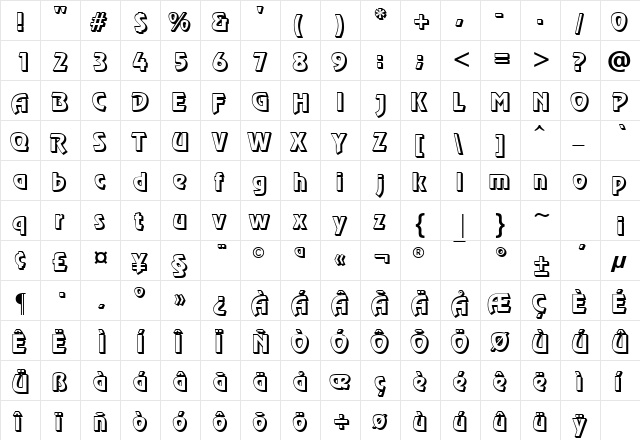
ChorusLineShadowSSK Regular
Design Context for ChorusLineShadowSSK Typeface
ChorusLineShadowSSK is built around its visual character rather than neutral utility — its distinctive forms are designed to make an impression at display sizes.
Font Pairing: Pair with a clean neutral sans-serif for body copy to let ChorusLineShadowSSK's character lead without overwhelming the composition.
Pro Tip: Use ChorusLineShadowSSK exclusively at display sizes — it was designed to be seen, not read at length. Let a neutral companion handle body copy.